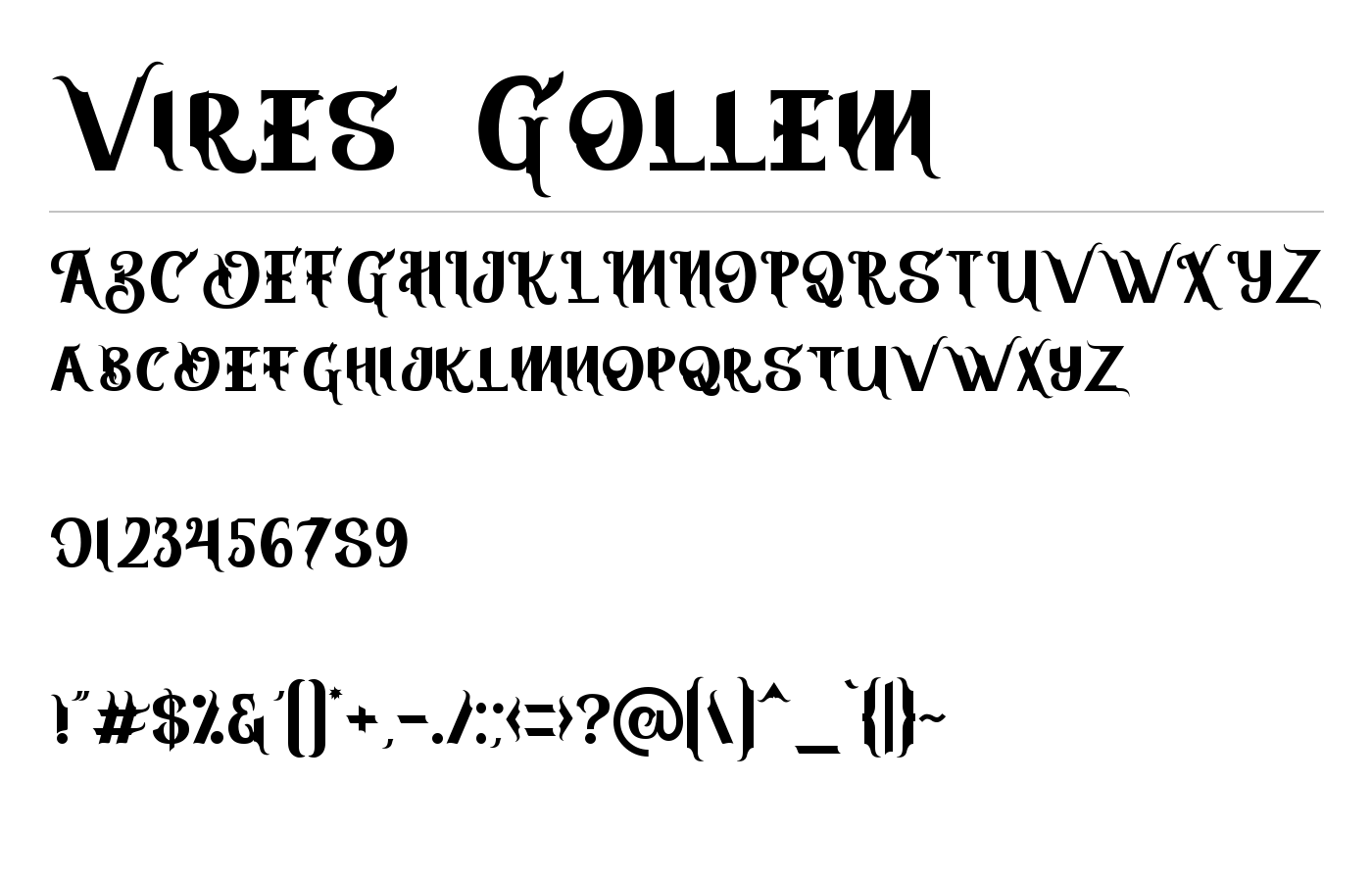
Vires Gollem is a dramatic serif font with a gothic flair, featuring sharp, thick serifs and high contrast between bold and thin strokes. Its intricate, decorative letterforms create a strong, mysterious personality, making it ideal for vintage or fantasy-themed branding, posters, and eye-catching headlines. This font works best in striking display uses where its unique style can stand out and convey an elegant yet intense mood.
Vires Gollem Font
About Vires Gollem Font